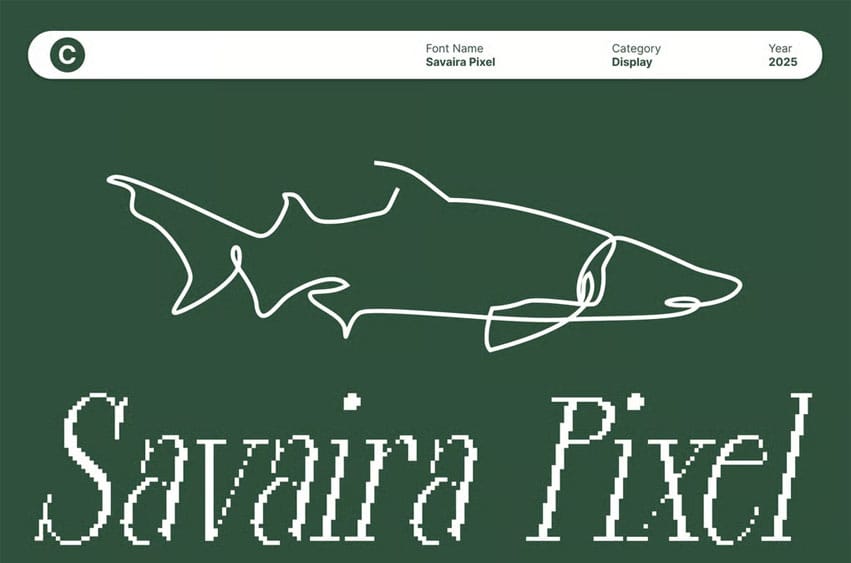
Savaira Pixel Font Condensed Modern Serif with Digital Elegance Modern Elegance Meets Pixel Personality This is a condensed modern serif font that elevates refinement through its long, slim serifs and gracefully sculpted letterforms. Designed with a contemporary flow, every curve and stroke communicates elegance. The addition of a pixel-inspired texture introduces a distinctive artistic twist, making the font feel both sophisticated and creatively modern.
Condensed Form for Bold, Efficient Design With its condensed proportions, this font maximizes space while maintaining clarity and style. This structure ensures efficient text placement, allowing headlines, titles, and display compositions to appear bold and commanding even in limited layouts. The compact form helps designers create visual impact without sacrificing harmony or readability.
Pixel Detailing for Creative Depth The pixel style embedded within its serif structure adds personality and texture, transforming each character into a visually engaging element. This digital nuance enhances the font’s versatility, making it suitable for modern branding, digital aesthetics, and creative concepts that demand a unique and memorable touch.
Perfect for Premium and Artistic Projects This font shines across luxury branding, posters, editorial digital layouts, and innovative design compositions. Its blend of elegance and pixel artistry makes it ideal for logos, high-end packaging, stylized headlines, and digital graphics. Whether you’re aiming for a refined atmosphere or a modern artistic look, brings distinction, beauty, and contemporary charm to every project.